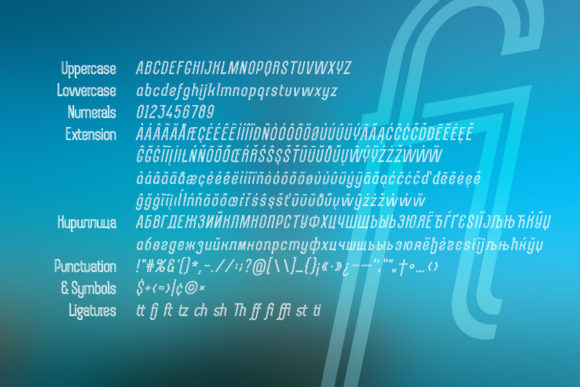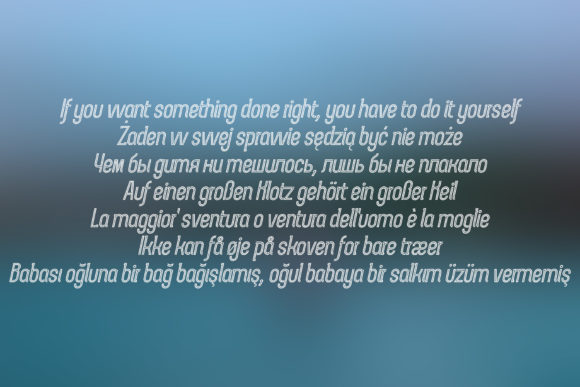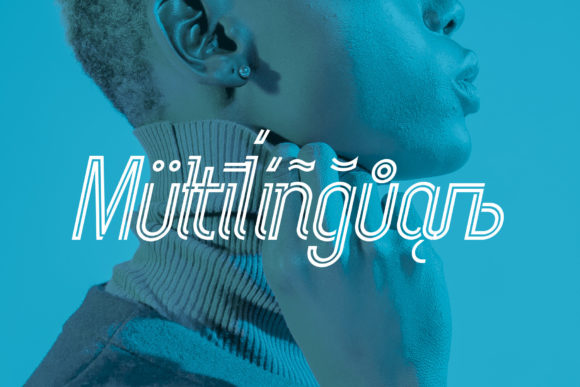
Introduction to Chokana Light Italic Font
Chokana Light Italic is a cool and retro styled display font, featuring a nostalgic multi-line inspired by the 70’s aesthetic.
This font could be the perfect solution if you want to offer a lovely vintage touch to your designs .
Key Features of Chokana Light Italic Font
Why Choose Chokana Light Italic Font?